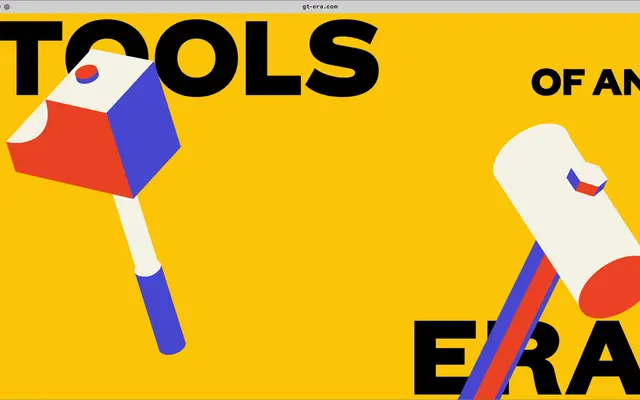
GT Era
Grilli Type · Thierry Blancpain with Grilli Type · 2025
GT Era specimen from Grilli Type
Thierry Blancpain's reimagining of early grotesks in Display and Text optical sizes, choosing flavour over neutrality.
An early grotesk by Thierry Blancpain with Grilli Type, released in 2025 and offered in 28 styles across Display and Text. Grilli draw on pre-modernist grotesks of the period when Bauhaus and De Stijl pushed them to extremes, and say the family shuns neutrality and embraces friction. Seven weights from Thin to Black come with matching Obliques in each optical size.
Grilli describe it as a reimagining of the warmth and idiosyncrasies of early grotesk typefaces, the pre-modernist tools that were pushed to extremes by Bauhaus and De Stijl. The typeface shuns neutrality and embraces friction.